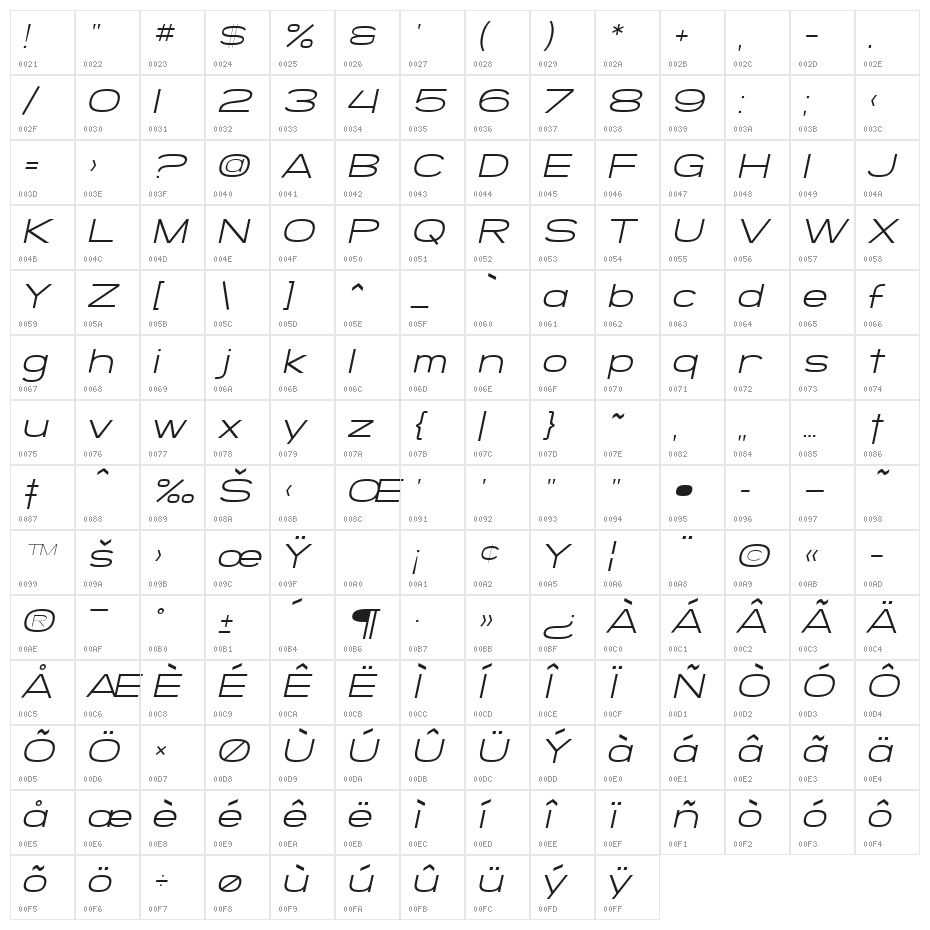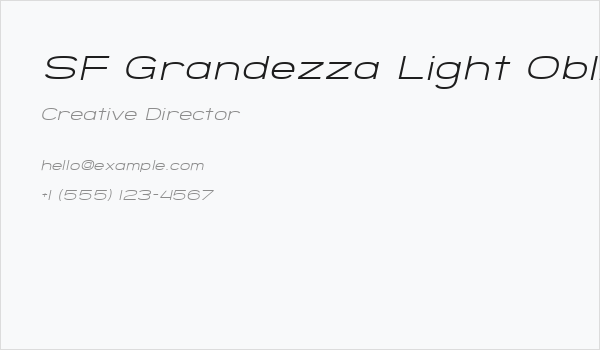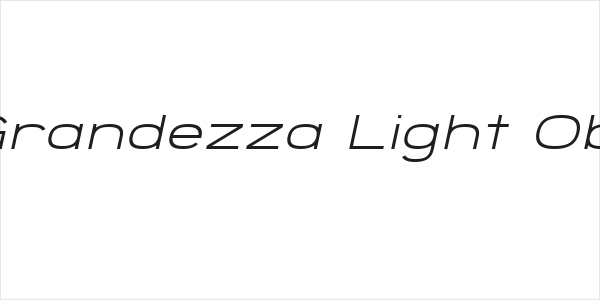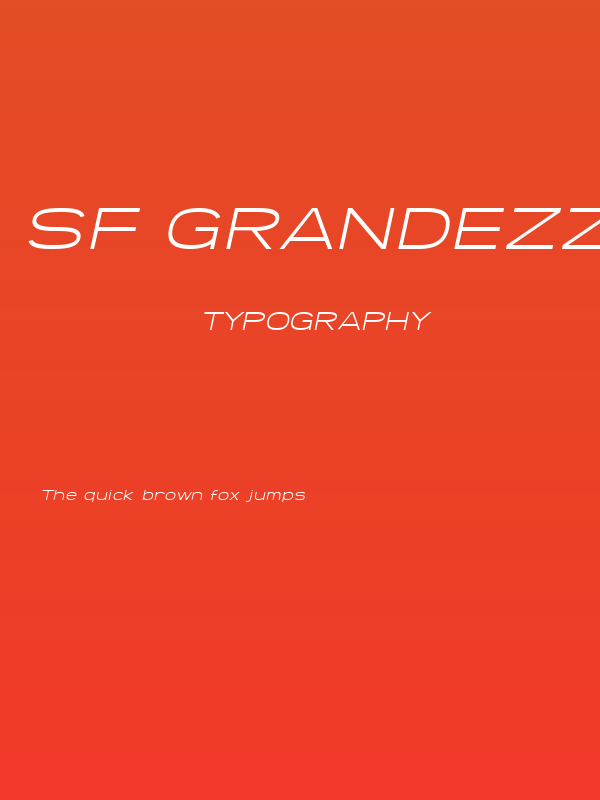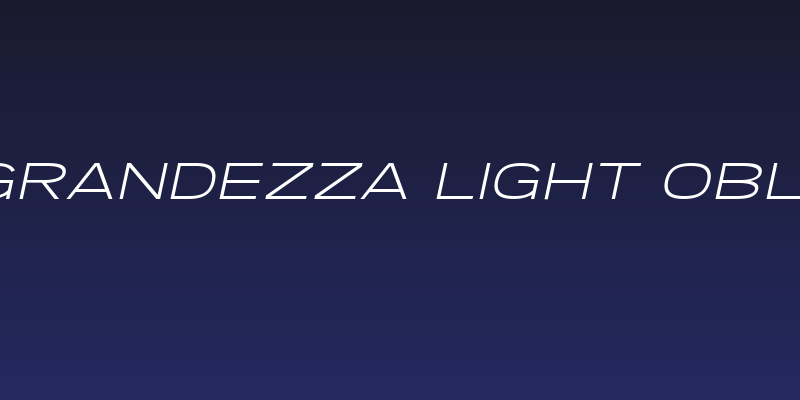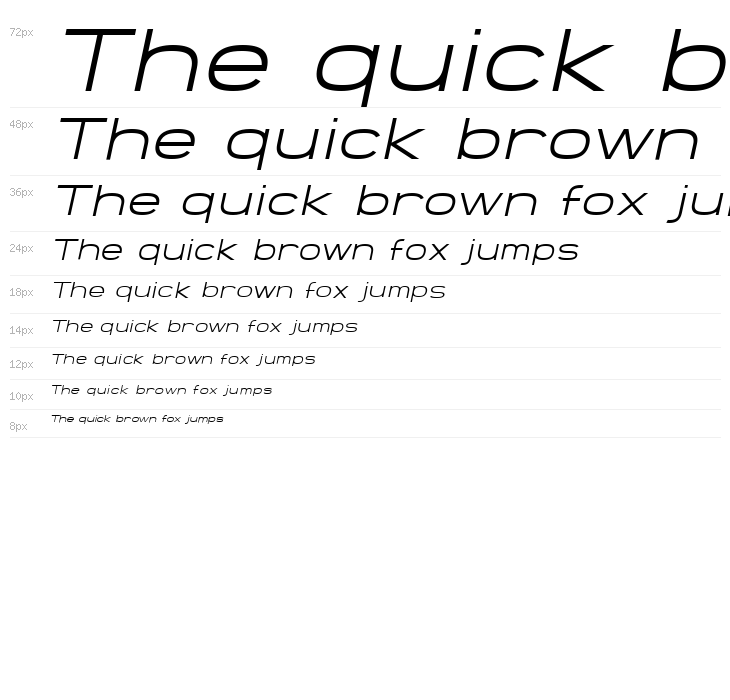
SF Grandezza Light Oblique Font
SF Grandezza Light Oblique Description
This font features a sleek and modern design with an oblique orientation, giving it a dynamic and forward-leaning appearance. The characters are thin and elongated, contributing to a sense of elegance and sophistication. The overall style is minimalist, with clean lines and a uniform stroke width that maintains consistency across all characters. The font's light weight enhances its airy and refined look, making it suitable for contemporary design projects. The character spacing is normal, ensuring readability while maintaining its stylish aesthetic.
| Proposed Projects | Ideal for modern branding, fashion magazines, tech websites, and elegant invitations. |